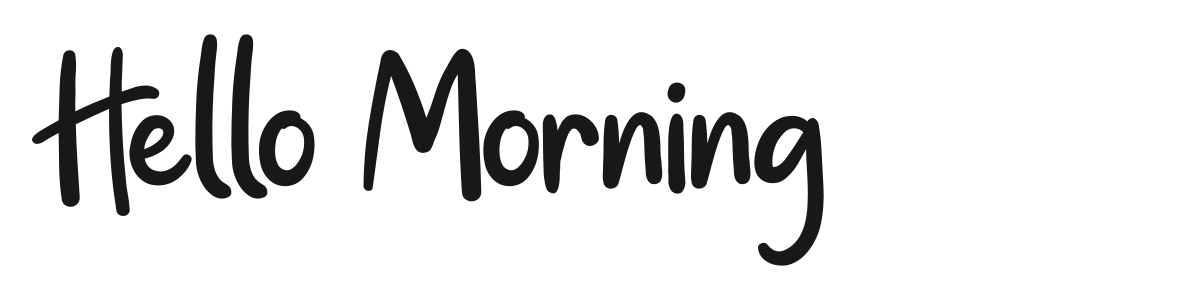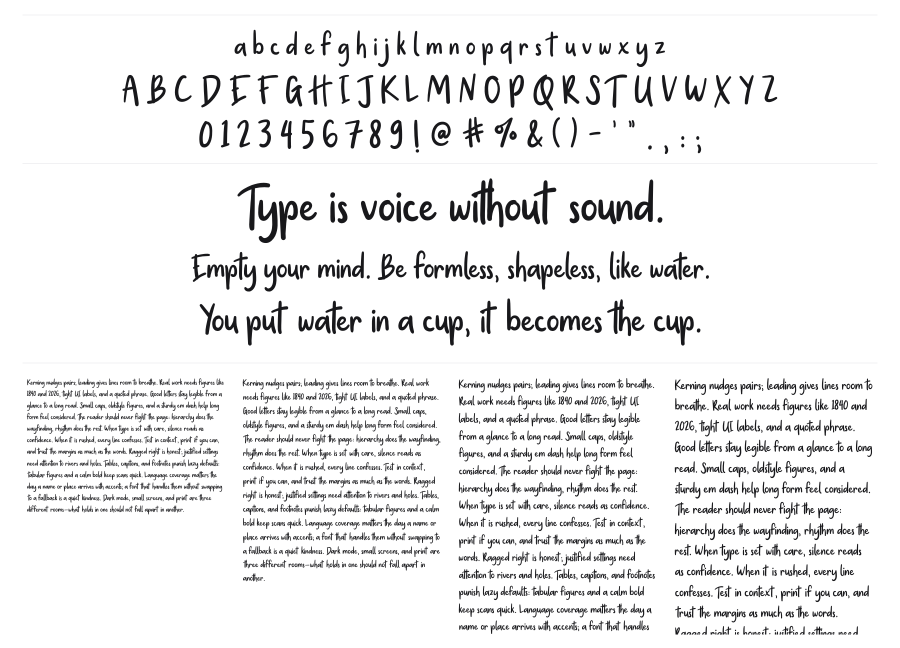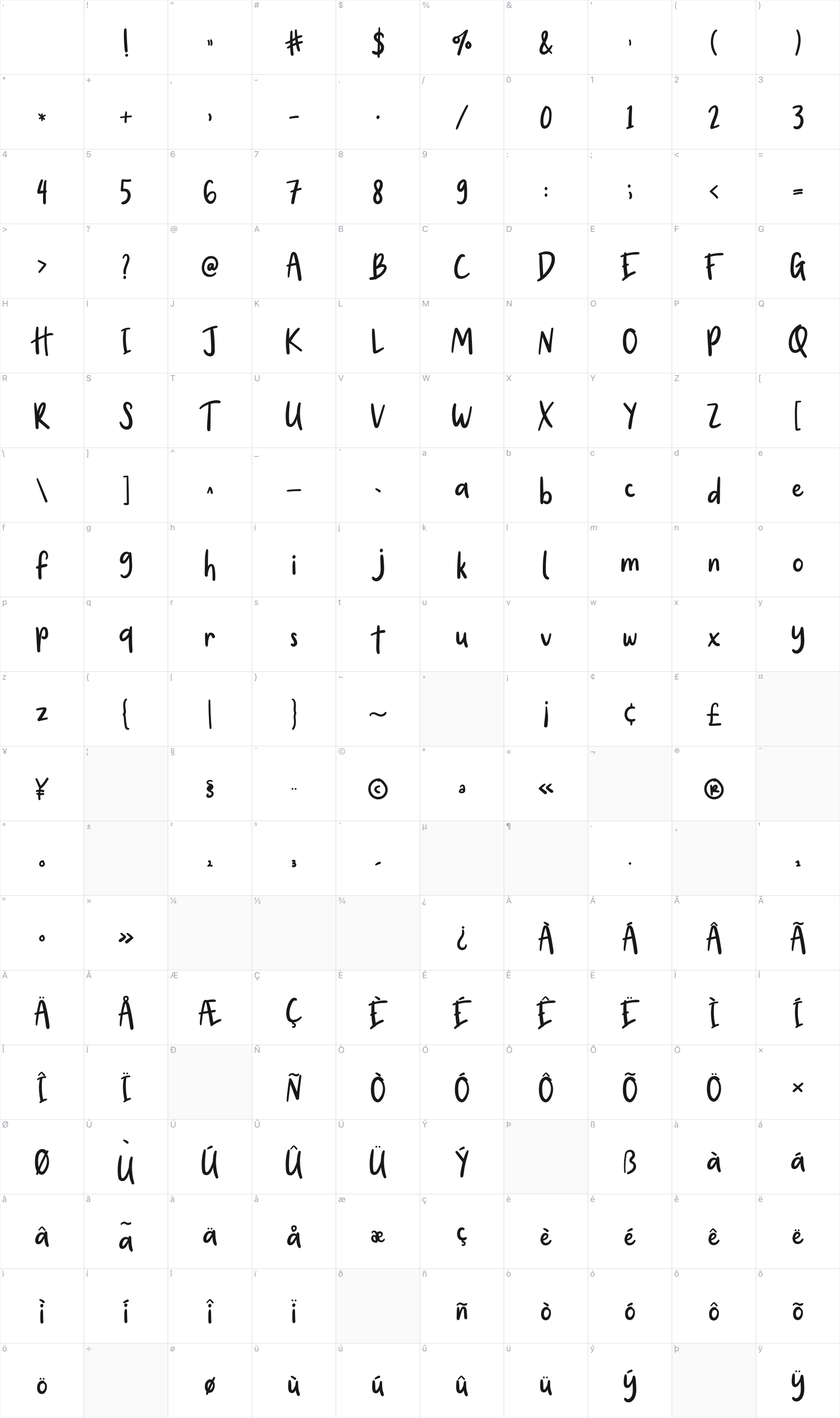
Hello Morning
Hello Morning is a bold upright casual script with thick rounded strokes and a cheerful handwritten energy. The chunky, marker-like weight and bouncy rhythm give it the feel of hand-lettered packaging or greeting card typography. It reads clearly at large sizes without losing its informal, personal warmth.